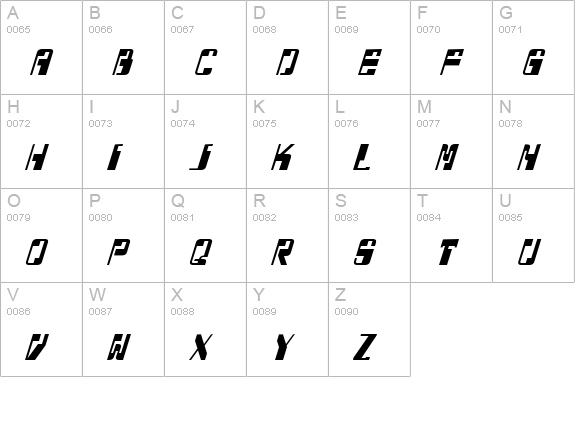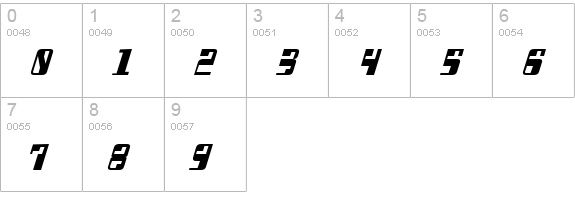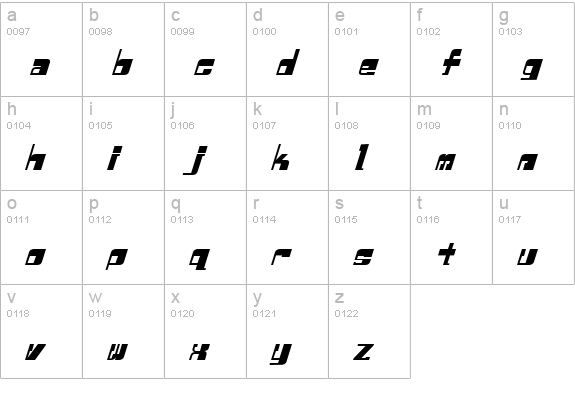
Doubt font is a unique and stylish typeface that is perfect for adding a touch of modernity to your design projects. With its sleek lines and contemporary look, Doubt font is sure to make a statement. This versatile font is suitable for a wide range of applications, from branding to editorial design. Whether you're creating a logo, poster, or website, Doubt font will help your text stand out. The best part? Doubt font is completely free to download at FontsMarket.com! You can easily access this elegant font and elevate your designs without breaking the bank. Don't miss out on this fantastic opportunity to enhance your creative projects with the sophisticated charm of Doubt font. Download it today and bring your visions to life with style and flair.